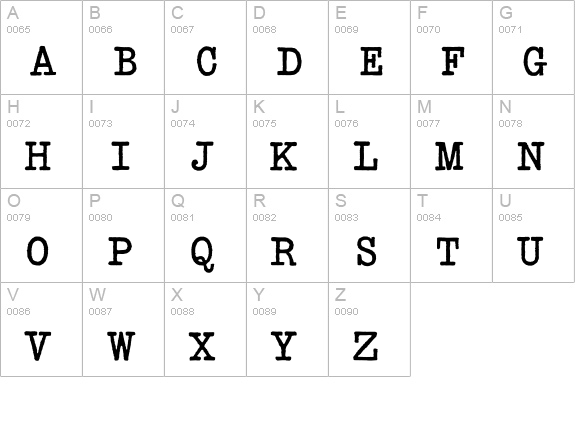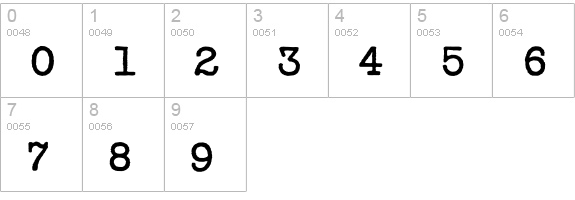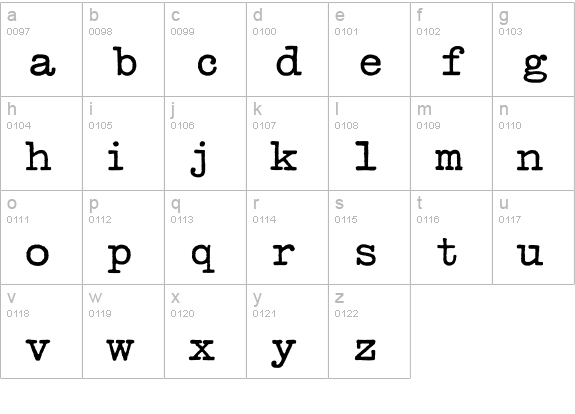
TypeWriterRomanConde Font Details
TypeWriterRomanConde font is a classic and elegant typeface that pays homage to the nostalgic charm of typewriters. With its crisp, clean lines and unique character shapes, this font captures the essence of a bygone era while still maintaining a modern edge. Featuring a timeless design, TypeWriterRomanConde font is perfect for adding a touch of vintage sophistication to any project. Whether you're creating invitations, brochures, posters, or even a personal blog, this font will add a touch of elegance and authenticity. Not only does TypeWriterRomanConde font exude style, but it is also incredibly versatile. With multiple weights and styles available, you can easily customize your text to suit your needs. Whether you want a bold statement or a subtle accent, this font has you covered. And the best part? TypeWriterRomanConde font is free! Yes, that's right. You can freely download this font at FontsMarket.com. Now, you don't have to worry about breaking the bank to add a touch of nostalgia to your projects. Just head over to FontsMarket.com and start creating with this timeless typeface. So why wait? Download TypeWriterRomanConde font today and let your creativity soar. Whether you're a graphic designer, a writer, or simply someone who appreciates the beauty of classic typography, this font is sure to become a staple in your collection. Don't miss out on this amazing opportunity to enhance your designs with a touch of vintage elegance.